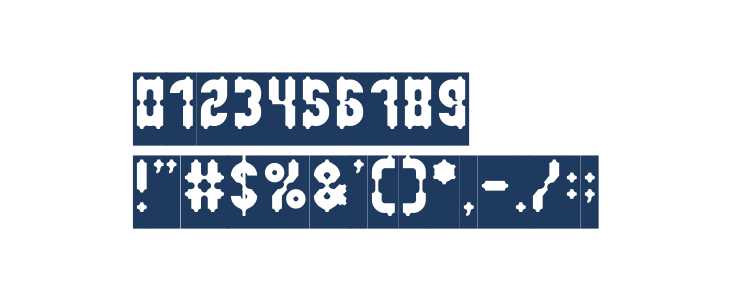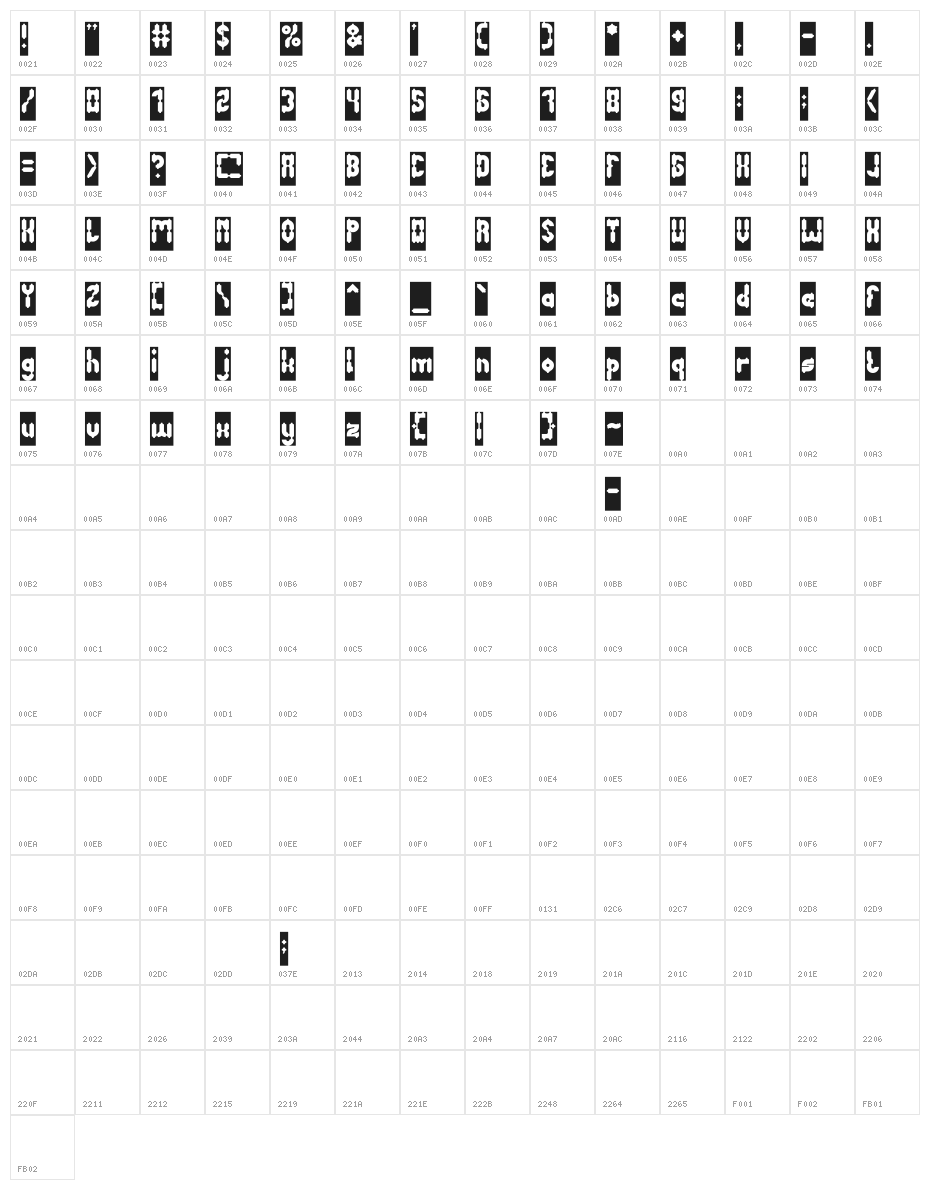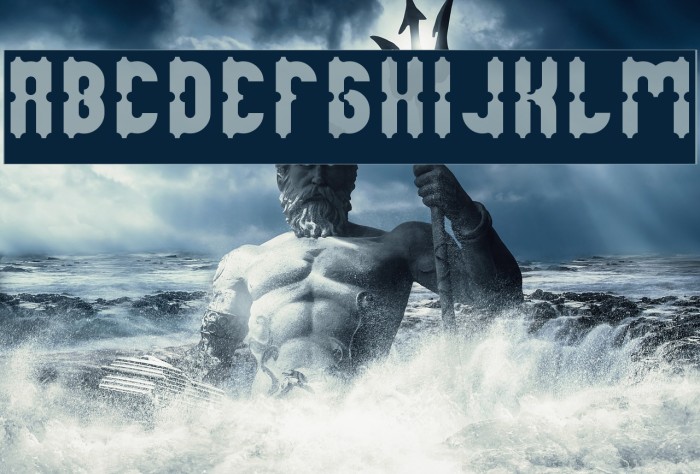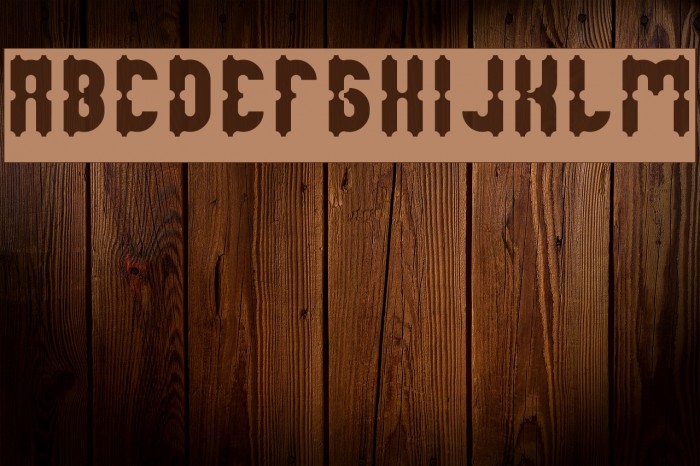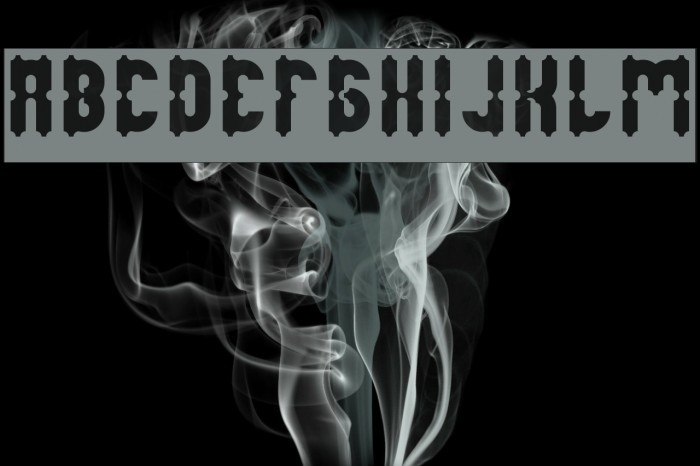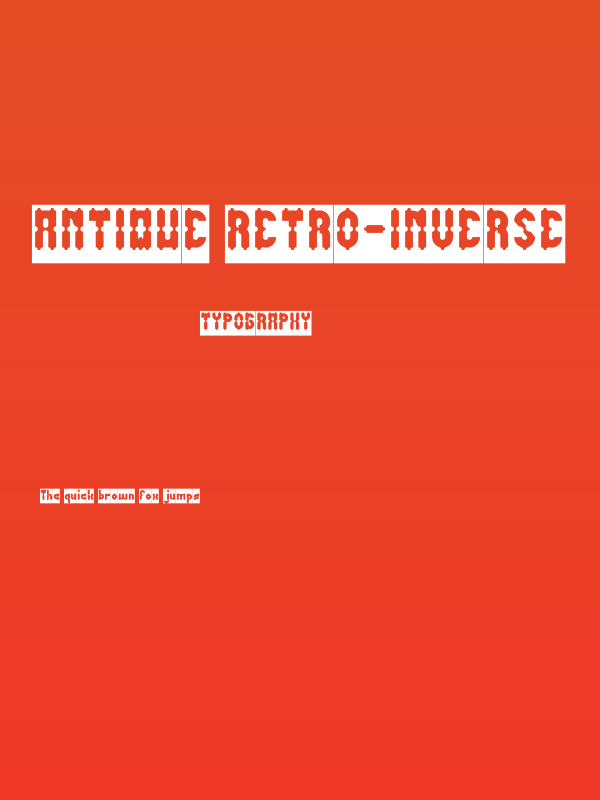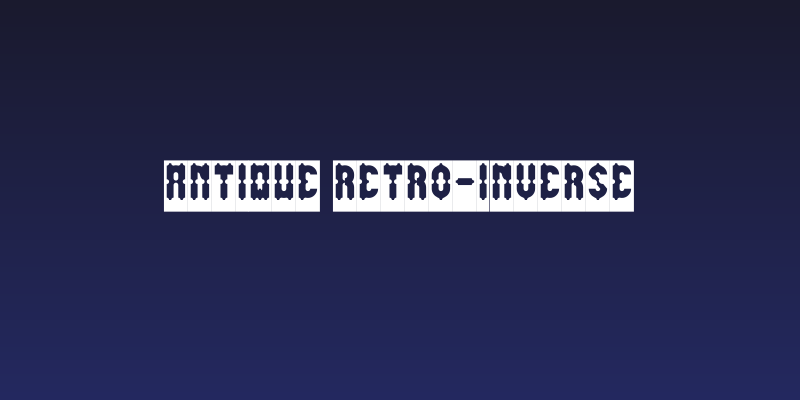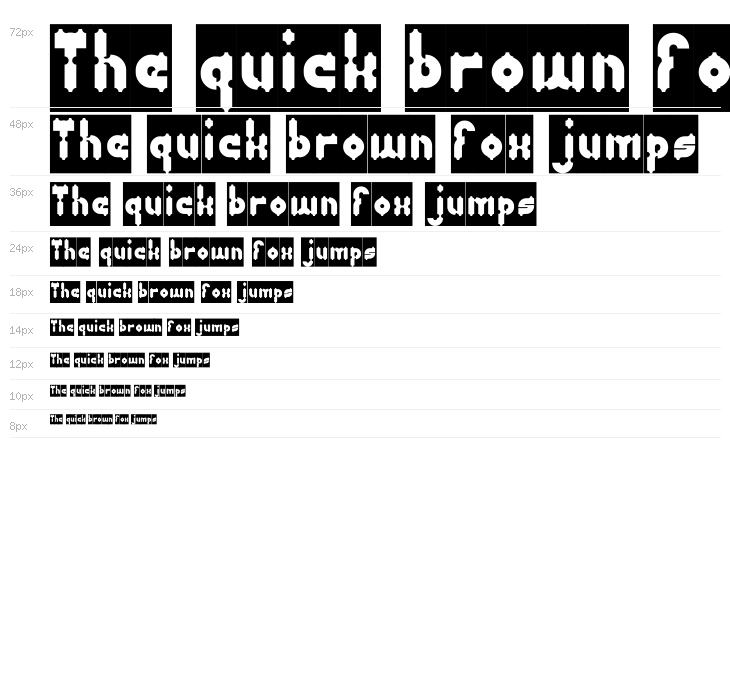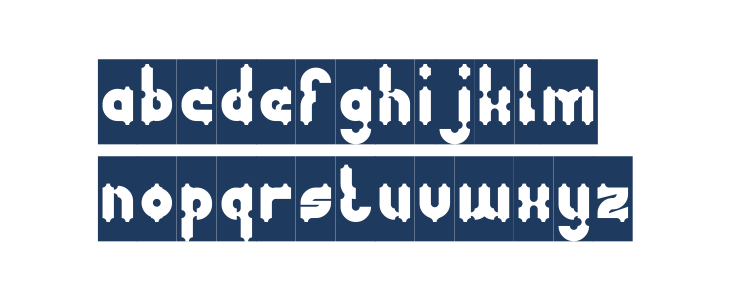
Antique Retro-Inverse Font
Antique Retro-Inverse Description
This font exhibits a bold and decorative style with a distinct antique and retro flair. The characters are designed with an inverse color scheme, featuring white letters on a black background, which enhances their bold appearance. The letterforms are characterized by unique cut-out shapes and intricate detailing, giving them a vintage and ornamental look. The uppercase and lowercase letters maintain a consistent style, with the uppercase being slightly more elaborate. Numbers and special characters follow the same design principles, ensuring uniformity across the font. This font's striking appearance makes it ideal for projects that require a touch of nostalgia and decorative elegance.
| Overall Style | Vintage |
| Use Case | Headlines, Logos, Decorative text |
| Proposed Projects | Ideal for vintage-themed posters, retro branding, decorative signage, and artistic projects requiring a nostalgic touch. |